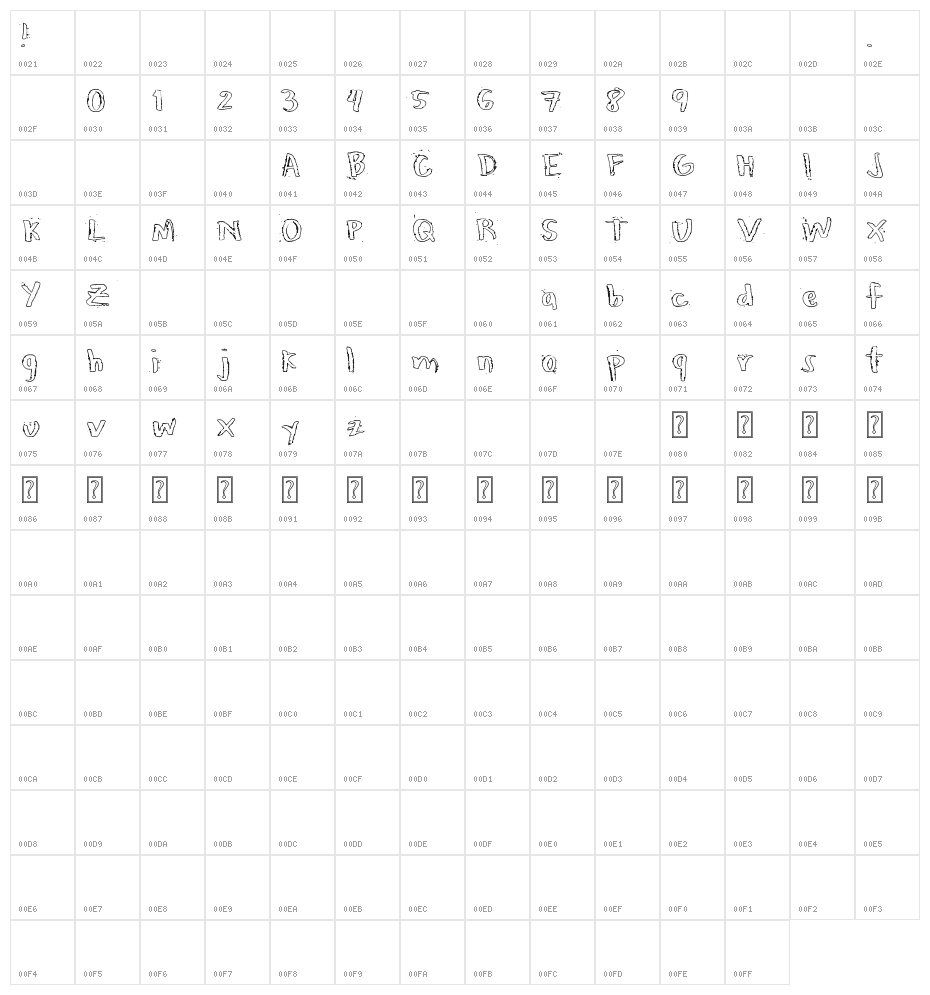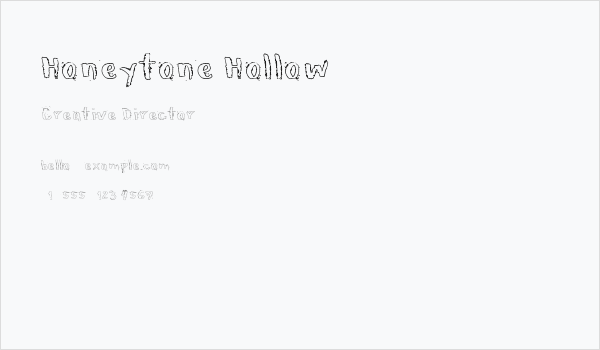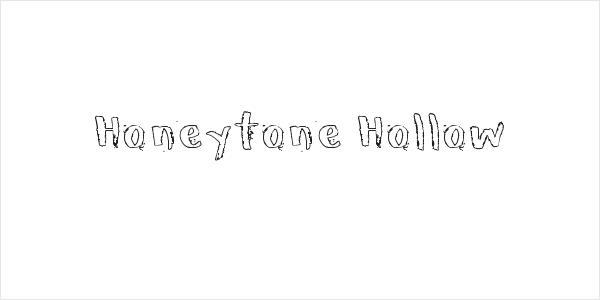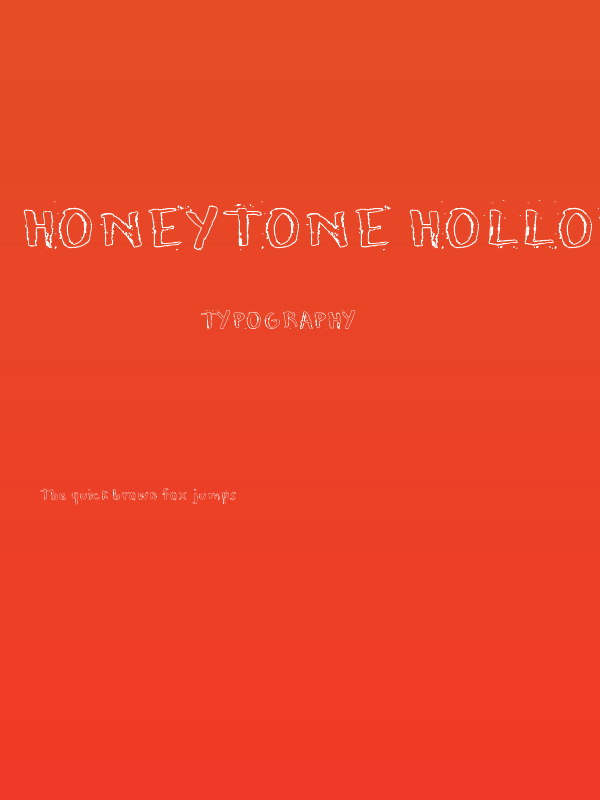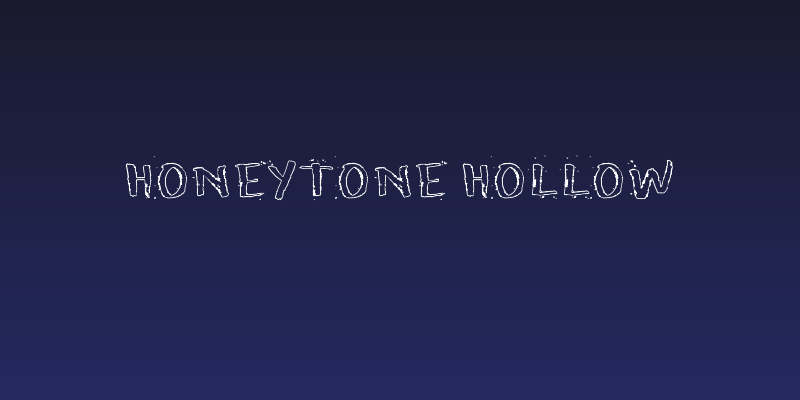
Honeytone Hollow Font
Honeytone Hollow Description
This font features a playful and artistic hollow design, characterized by its hand-drawn appearance. The letters have a casual, uneven stroke that gives them a whimsical and informal feel. The hollow aspect adds a unique dimension, making the characters appear light and airy. This style is reminiscent of doodles or sketches, with each letter maintaining a consistent yet quirky form. The font includes both uppercase and lowercase letters, numbers, and a selection of special characters, all maintaining the same artistic theme. The overall look is creative and approachable, suitable for projects that require a touch of personality and charm.